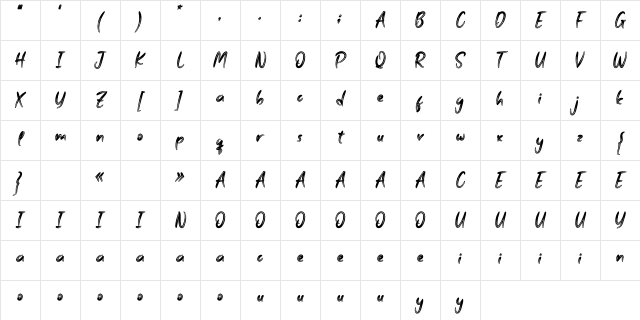
Complete Growth Personal Use glyph index. Displaying only characters natively supported by Growth Personal Use font.
Growth is a composed and adaptable typeface that performs quietly and consistently across a wide range of design contexts.